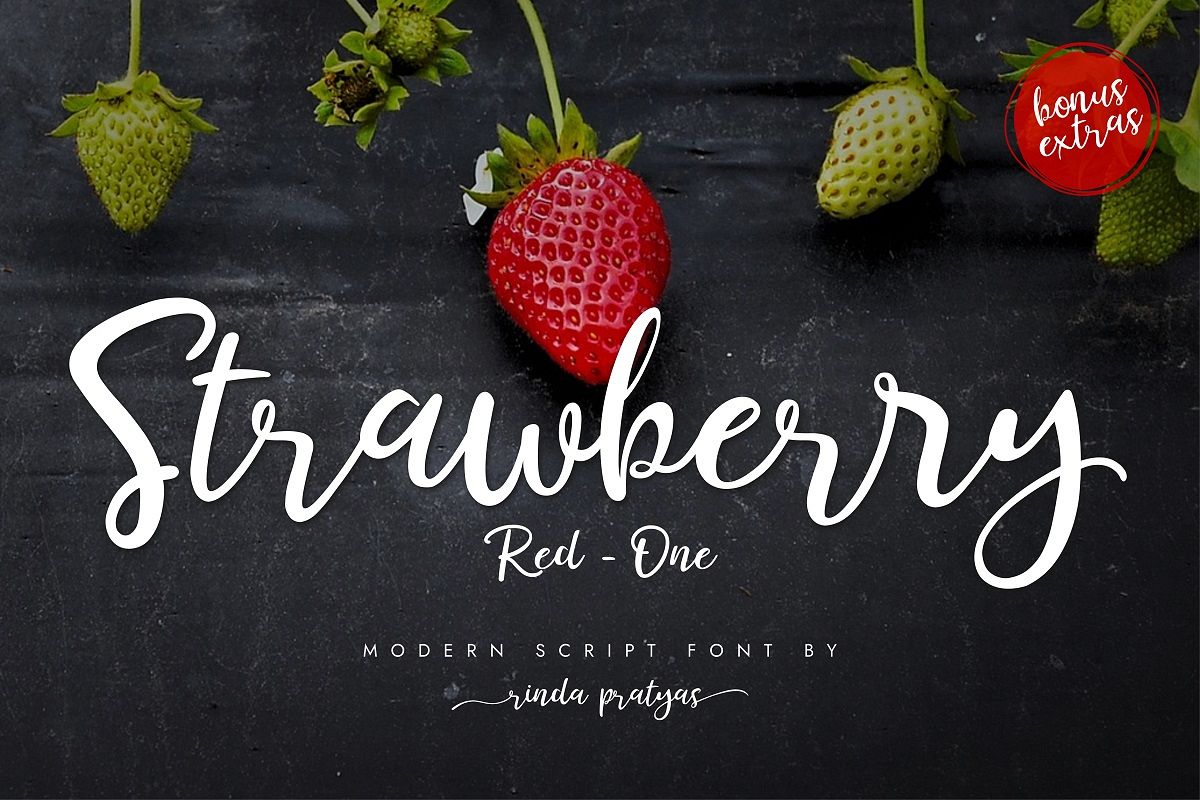
STRAWBERRY RED ONE
Strawberry Red One is a modern script font inspired by strawberry.This font looks fresh, stylish, elegant and natural.
This font is great for logo branding & invitations, wedding design, photography, quotes, posters,
watermark, special events and much more.